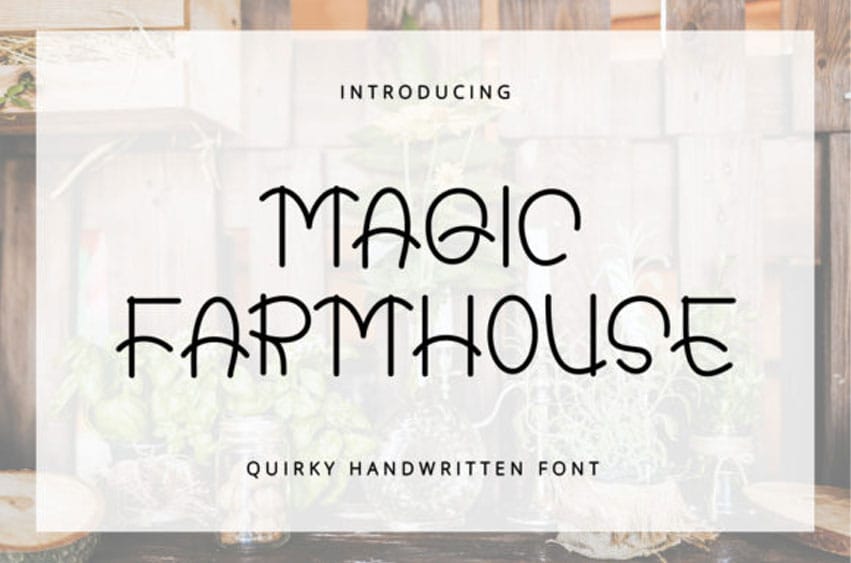
Magic Farmhouse Font is a handwritten display font with a cute and unique style.
It is perfect for branding, logo designs, lettering, clothing, posters, magazines, packaging, shopping bags, t-shirts, book covers, photography, special events, and other design projects. Add it to your most creative ideas, and notice how it makes them come alive!